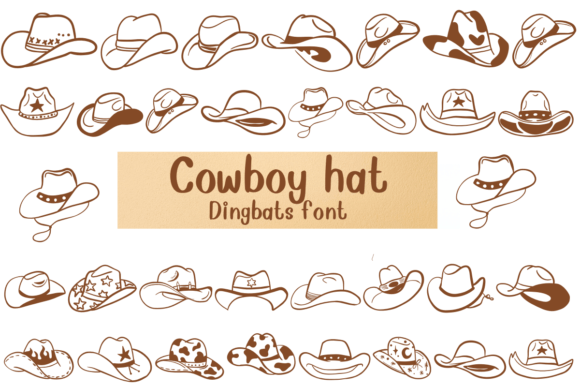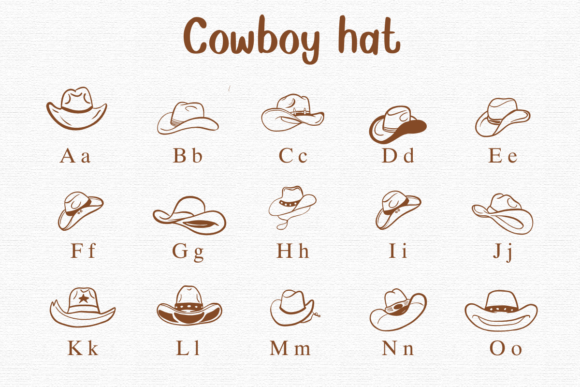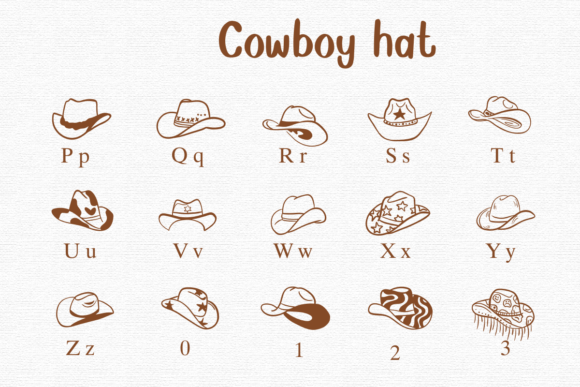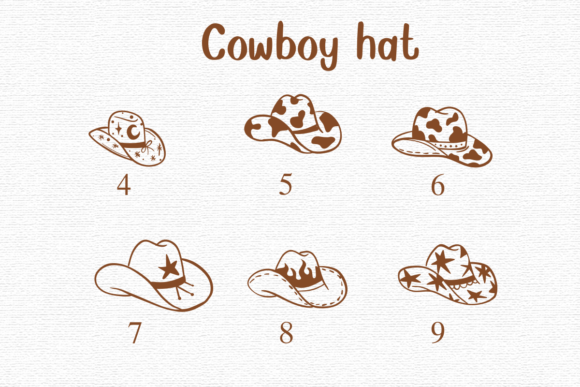
Cowboy Hat Font
About the Cowboy Hat Font
Get ready to be inspired by Cowboy Hat Font, a fresh and dynamic typeface for modern creators. Cowboy Hat is a fun dingbat font that features a variety of cowboy hat symbols. Perfect for adding a Western flair to your designs, each character in the font represents a different style of cowboy hat. Use it to give your projects a playful and rustic touch.
Cowboy Hat is ideally suited for headlines, short titles, or as an illustrative element in posters and branding for Western-themed businesses, events, or products. Its playful nature makes it perfect for children’s products or projects requiring a touch of rustic charm. However, avoid using it for body text or long passages; its limited character set and decorative nature make it unsuitable for extended readability.
This font’s personality is undeniably playful and friendly, yet maintains a degree of ruggedness. To complement this, pair it with a clean sans-serif like Open Sans for body copy, or a more rugged serif like Playfair Display for a more sophisticated Western feel. A simple script font could also add a touch of elegance, balancing the playful energy of the cowboy hats.
Consider using Cowboy Hat sparingly as an accent to avoid overwhelming the design. Its effectiveness lies in its unique application, not its versatility as a primary typeface.
Cowboy Hat Font Usage Examples
Cowboy Hat Font Example